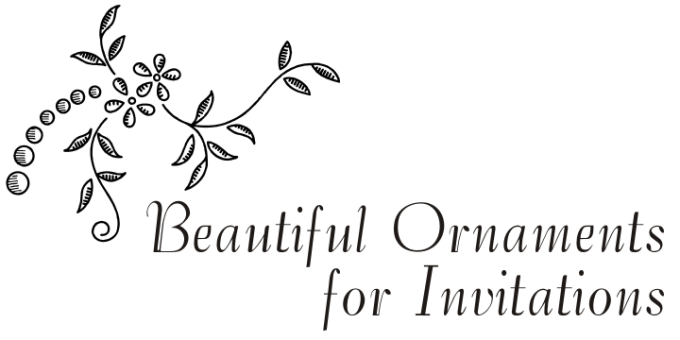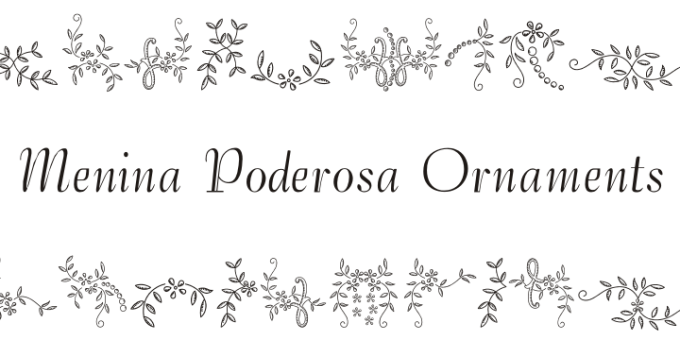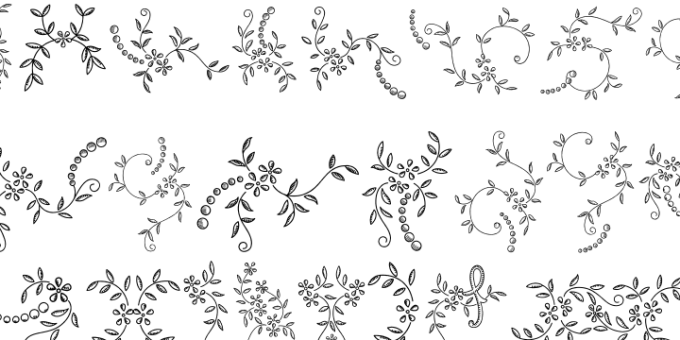
Menina Poderosa Ornaments
Meninas are the new comprehensive collection of innovative craft alphabets and ornaments researched in rare cross-stitch booklets from 1850 to 1930. This alphabet and ornaments series was entirely designed by hand, without use of auto-tracing, by Iza W, from Intellecta Design.
“Menina” means “Girl” in Portuguese. Menina Poderosa is a Powerfull Girl.